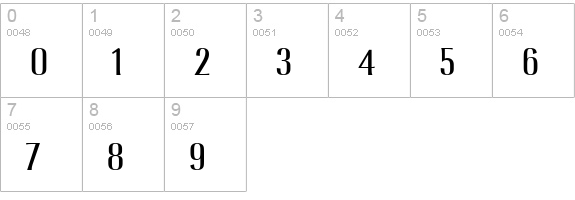
Lennox ITC Book Font Details
Lennox ITC Book is a comfortable, highly readable variant in the Lennox typeface family \xE2\x80\x94 well suited to long-form body text, articles, and editorial content.
Lennox ITC Book is a timeless and elegant font that effortlessly captures attention with its graceful curves and balanced letterforms. This versatile typeface emanates a sense of sophistication, making it perfect for various design projects such as book covers, magazines, and corporate branding. One of the standout features of Lennox ITC Book is its exceptional legibility, ensuring that every word is crystal clear and easy to read. The carefully crafted letterforms maintain a perfect balance between traditional serifs and modern aesthetics, giving this font a unique and captivating charm. Moreover, Lennox ITC Book offers a wide range of weights and styles, allowing designers to experiment and create stunning typographic compositions. Whether it's a bold headline or a delicate paragraph, this font adapts flawlessly to different sizes and contexts. What makes this font even more appealing is that it is freely available for download at FontsMarket.com. This means that designers, students, and enthusiasts alike can access and utilize this exceptional typeface without any cost. Its availability ensures that creativity knows no boundaries and that everyone can benefit from the timeless beauty of Lennox ITC Book. So, if you're looking for a font that exudes elegance, legibility, and versatility, look no further than Lennox ITC Book. Download it for free at FontsMarket.com and unleash your creativity with this remarkable typeface.